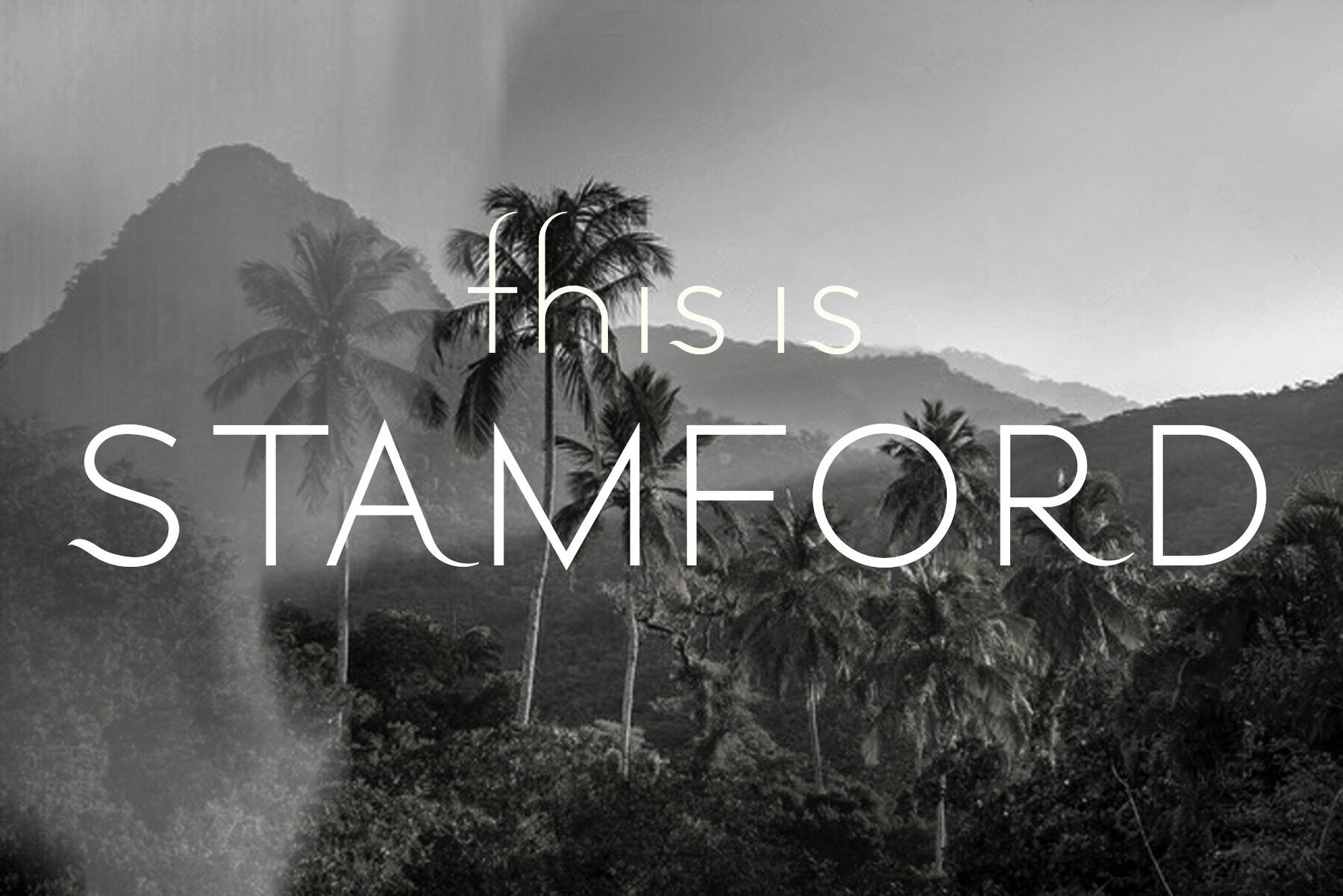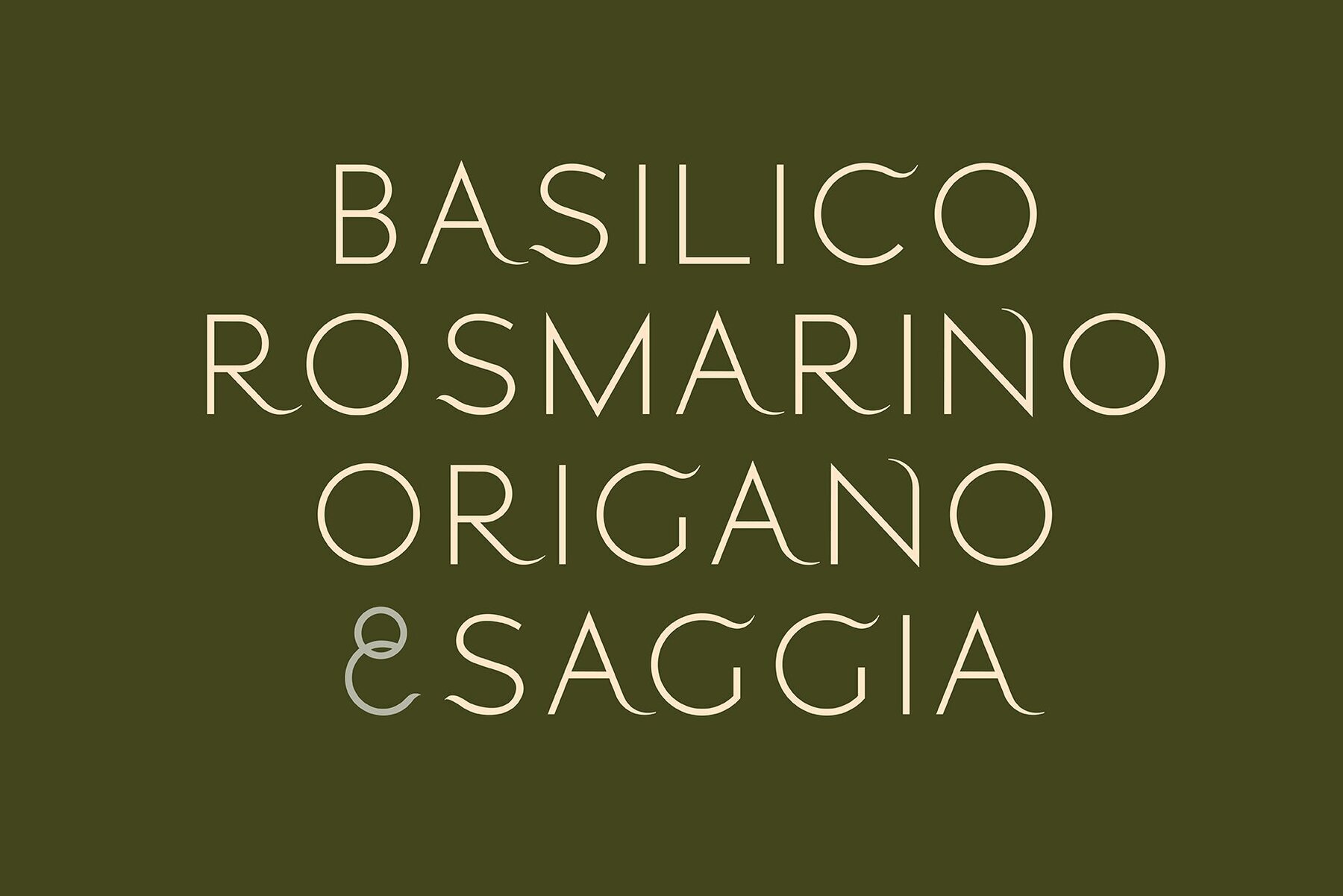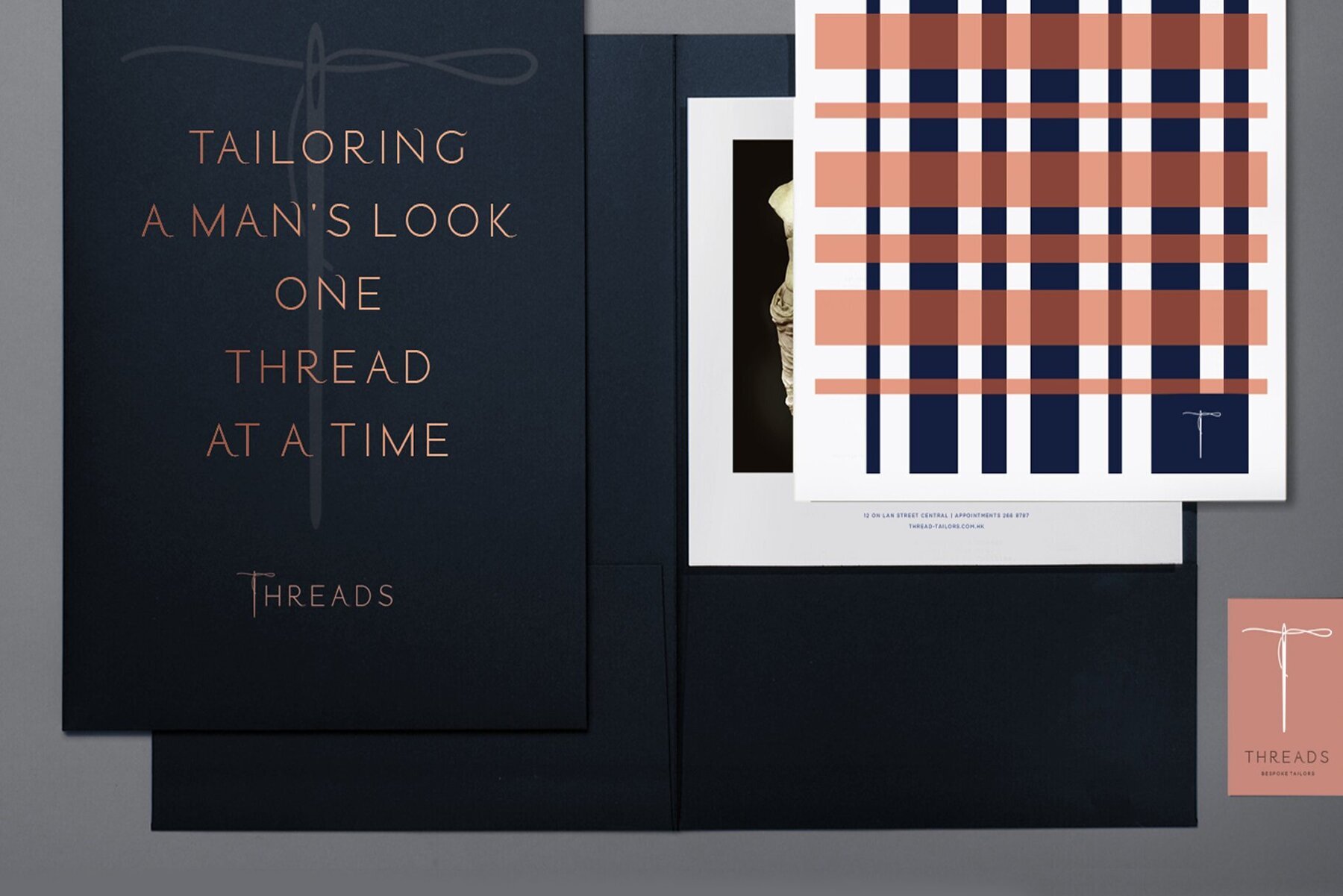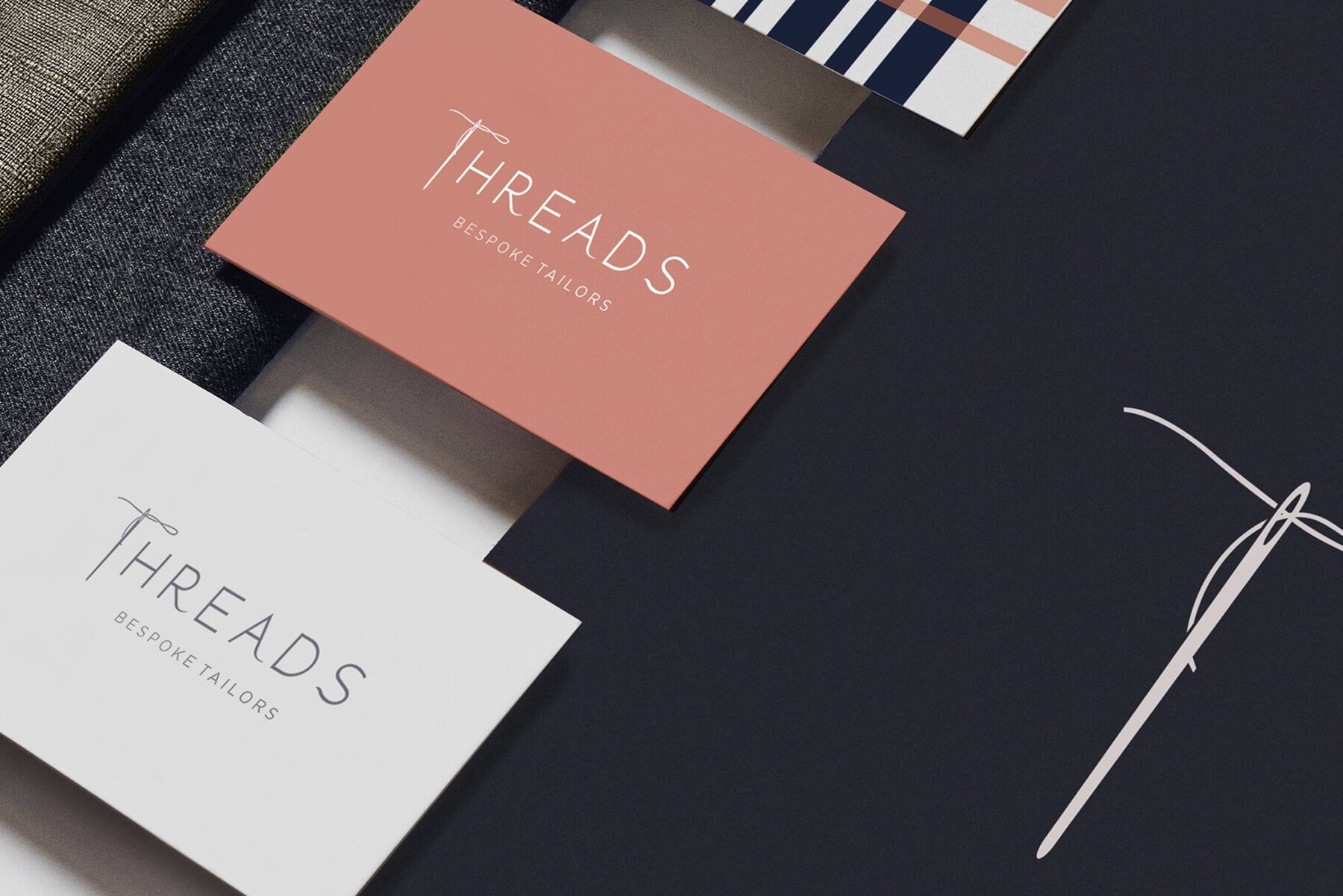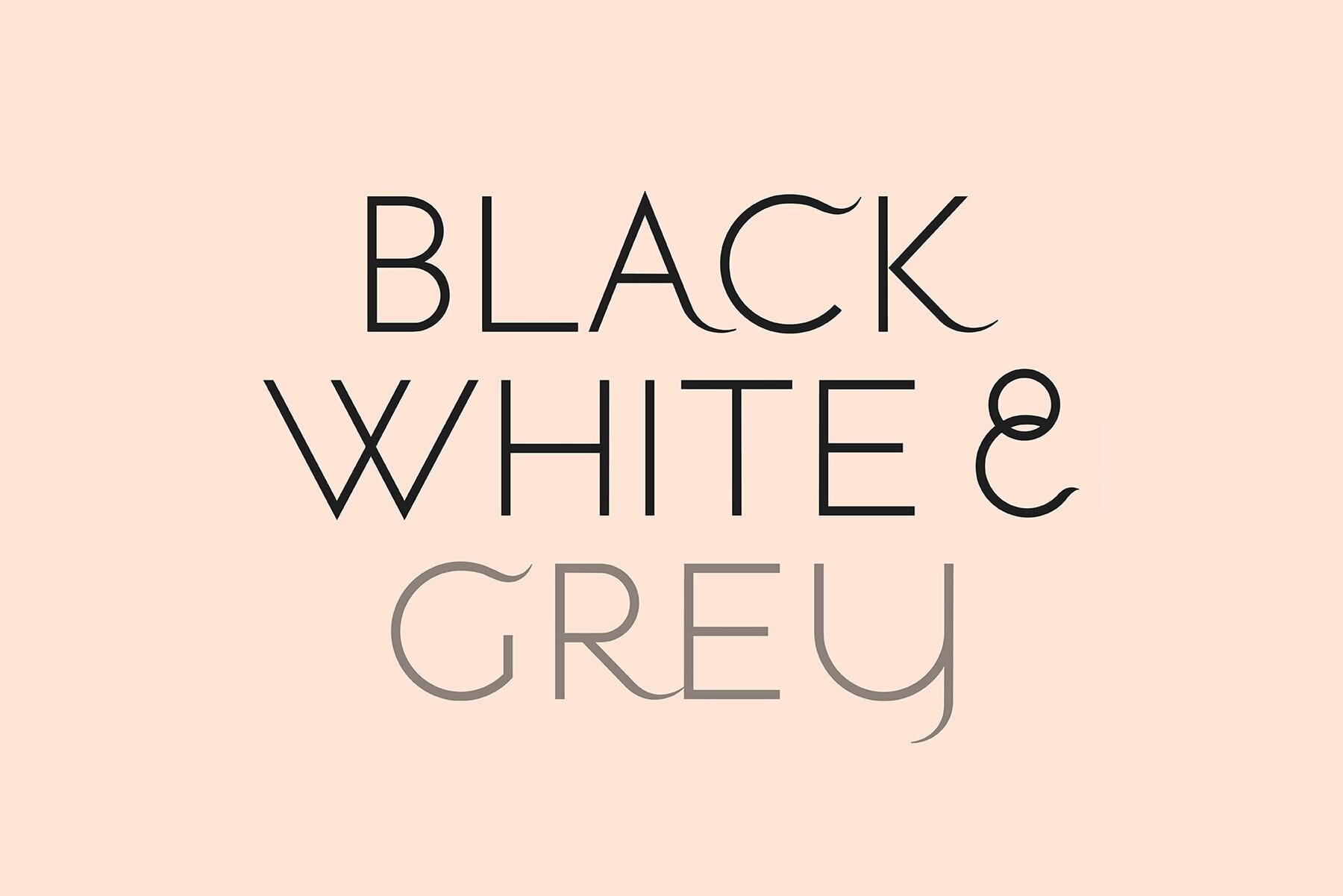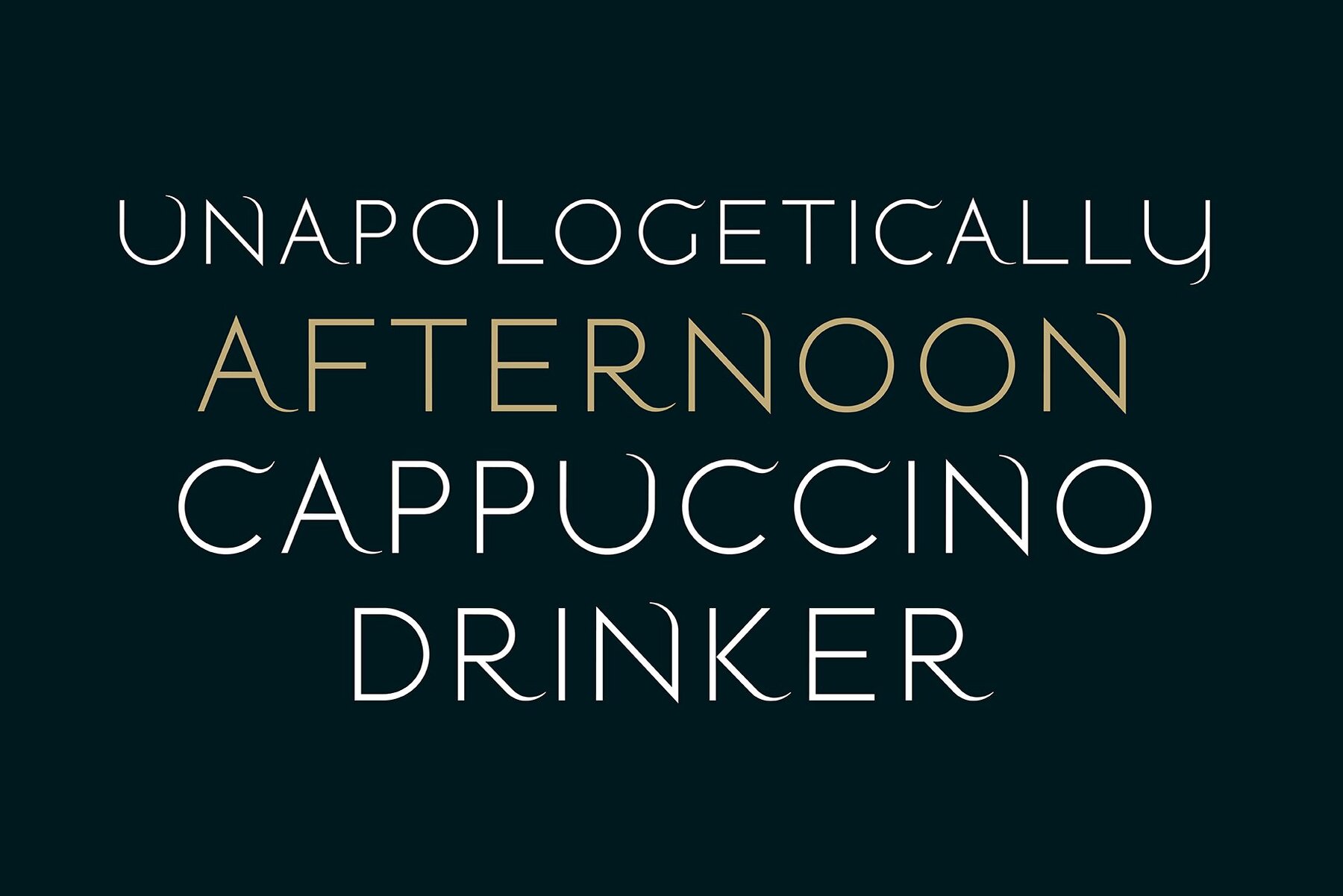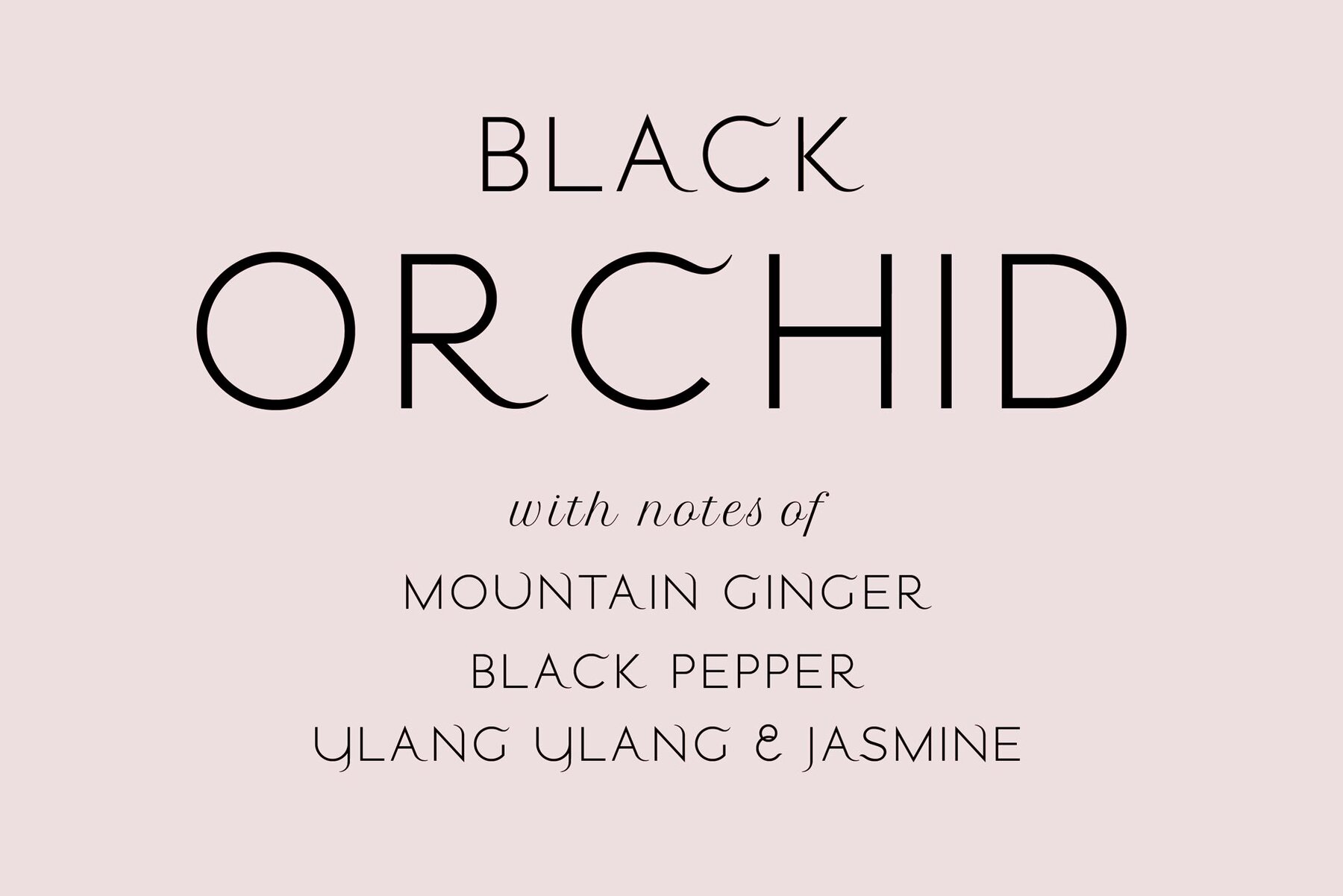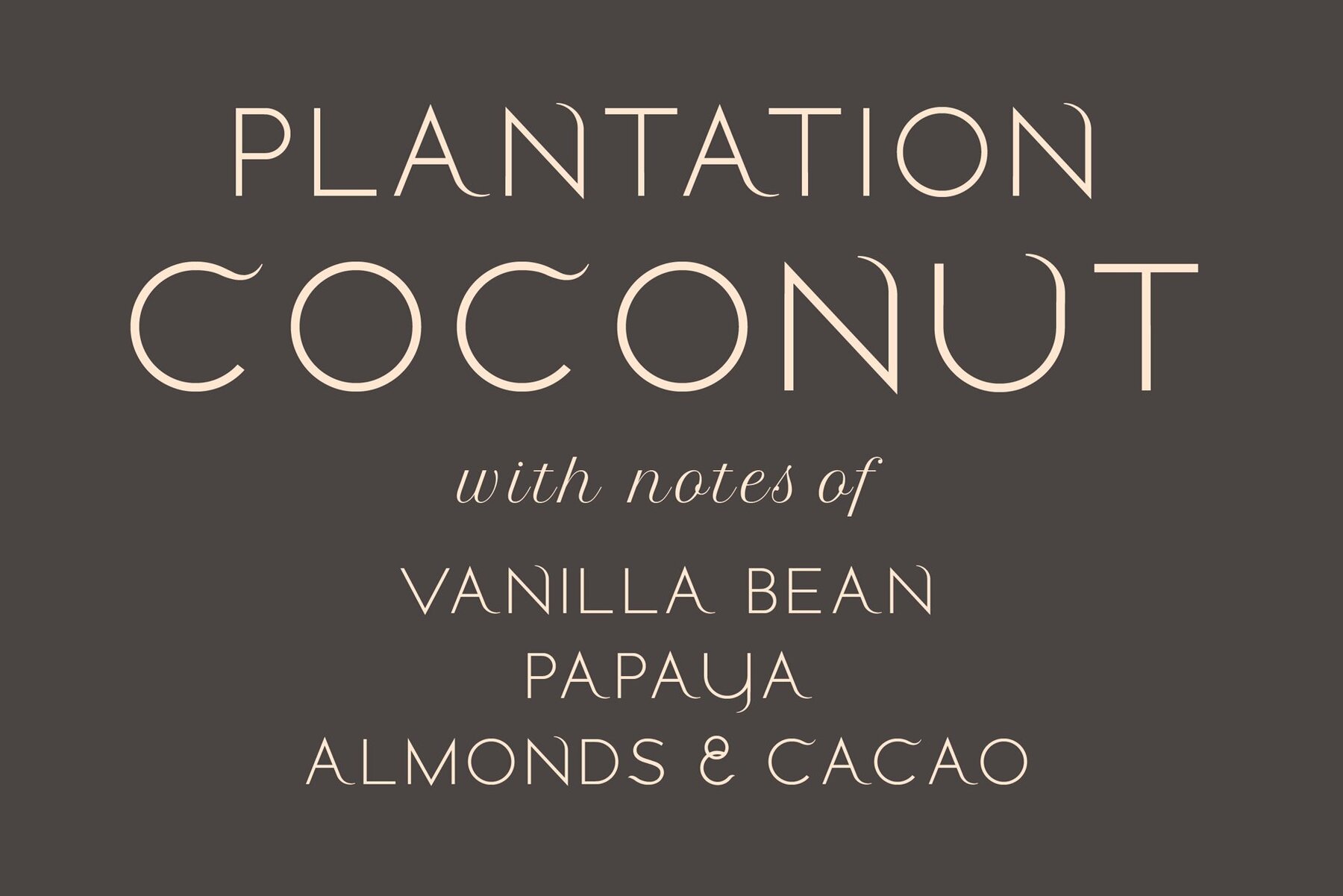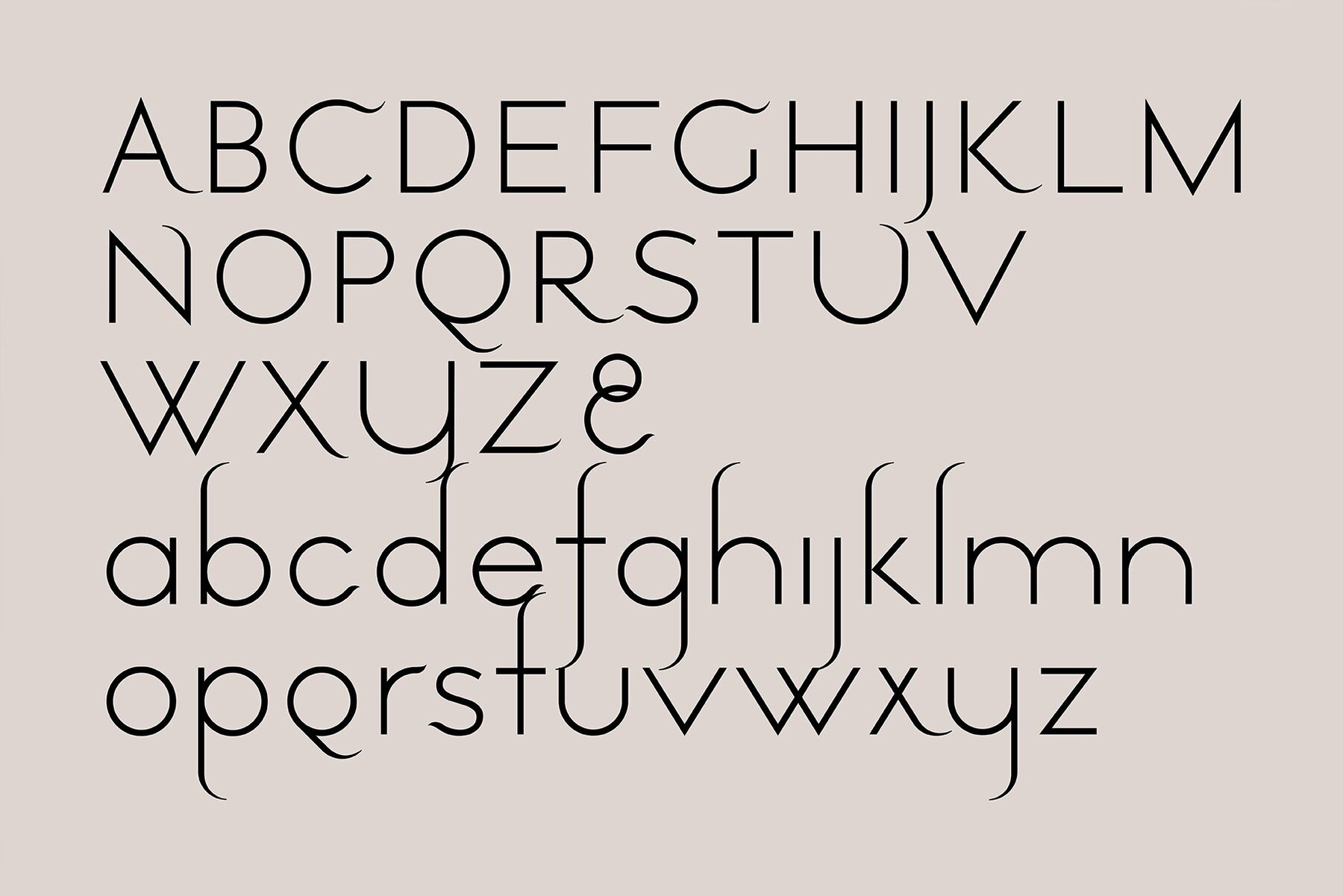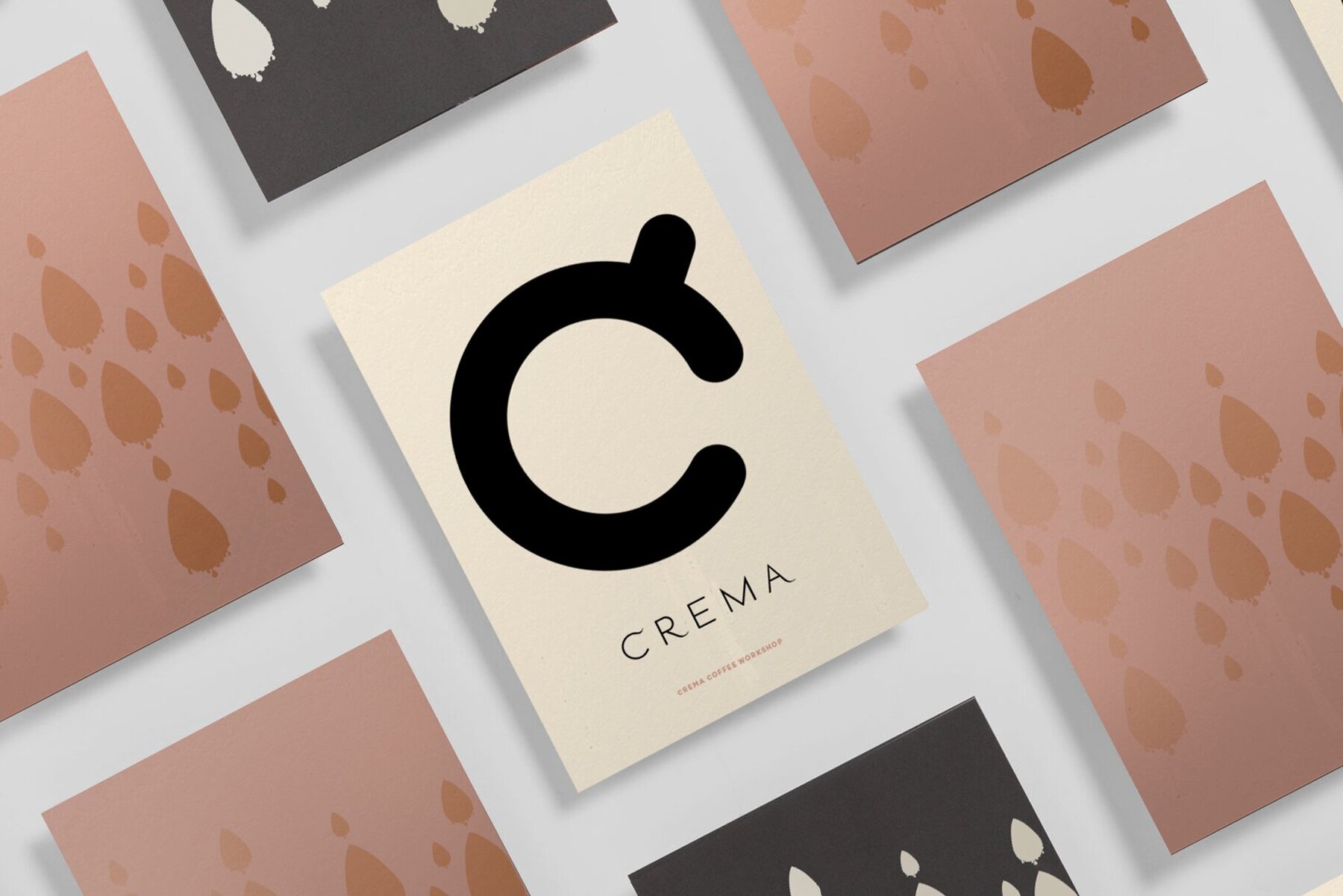
Stamford Font
This font showcases a modern, geometric sans-serif design that pairs elegance with minimalism. It features clean lines, balanced proportions, and high contrast, making it suitable for a wide range of applications, particularly in display and branding contexts. The sharp and crisp details offer a professional and contemporary look that commands attention while maintaining excellent legibility.